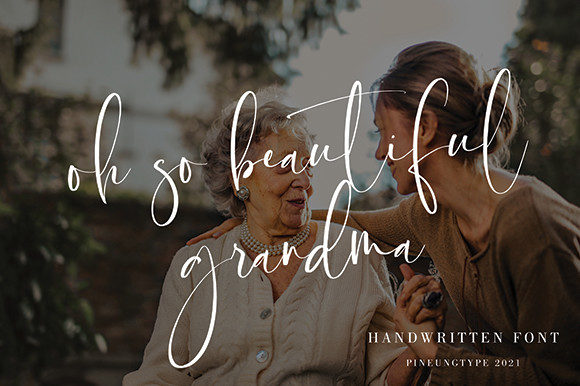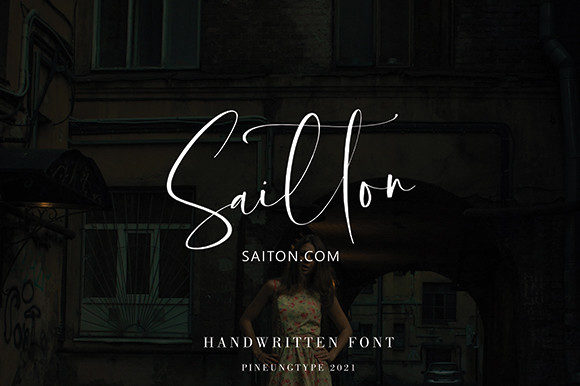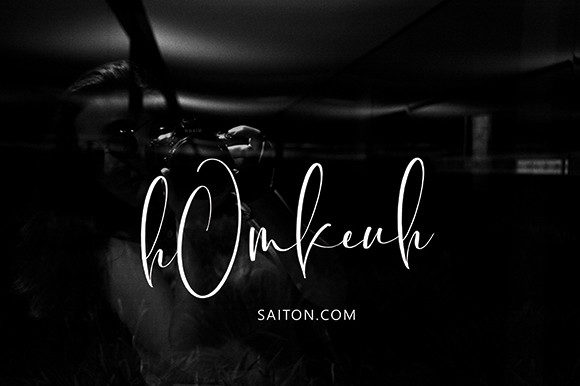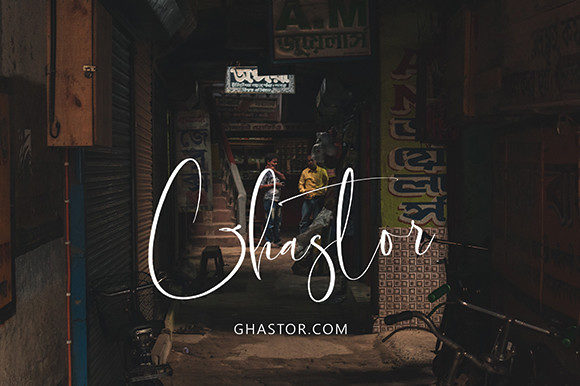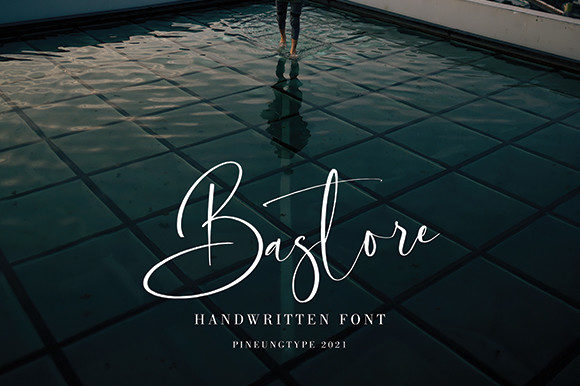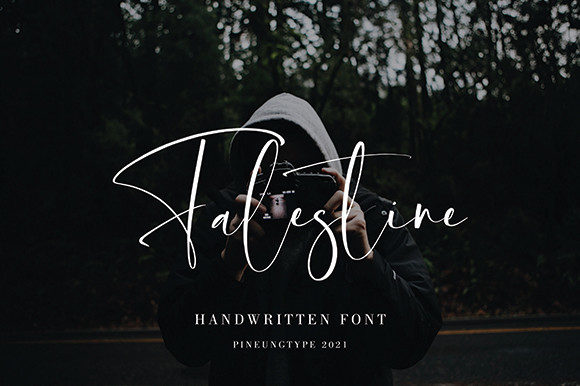
Introduction to Phistop Font
As a designer, you’ve probably experienced that moment when you’re working on a creative project and you can’t quite put your finger on what’s missing. The words, the images, the colors – everything is there, but something just doesn’t feel right. And then, like a breath of fresh air, you stumble upon the perfect font. For those who have been searching for the perfect script font, your wait is over. Introducing the Phistop Font, a high-quality, delicate script font that adds a touch of elegance to any design.
The Phistop Font is a design resource that will elevate your creative project to the next level. With its clean, thin, and smooth vibe, it’s perfect for adding a professional touch to your work. Whether you’re a graphic designer, a writer, or a creative entrepreneur, this font is a valuable addition to your toolkit. And the best part? It’s available for free download, complete with a transparent background that makes it easy to integrate into your design.
Key Features of Phistop Font
- High-quality, professional design resource ideal for creative projects.
- Comes with a transparent background, making it easy to customize and integrate into various designs.
- Phistop Font is designed to be highly legible, even at small font sizes, making it perfect for use in presentations, infographics, and other visual materials.
- Unique, modern design that can add a touch of sophistication and elegance to any creative project.
Honest Review: Phistop Font
I recently had the chance to work with the Phistop Font, and I must say it’s been a game-changer for my design projects. This high-quality font is a fantastic design resource that offers a wide range of creative possibilities. ✨
Here are some of the features that I particularly love about the Phistop Font:
- Wide range of font styles and weights
- Perfect for creative projects that require a unique touch
- High-quality design that’s sure to impress
However, I did encounter a few limitations with the Phistop Font: ⚠️
- Some of the font styles may not be compatible with older design software
- The font may not be suitable for large-scale commercial projects
Overall, I’m thoroughly impressed with the Phistop Font. It’s a fantastic addition to any design resource collection, and I would highly recommend it to anyone looking for a unique and high-quality font. ✨
Tips for Getting the Most Out of Phistop Font
For the best results, use Phistop Font on a high-quality design resource with a transparent background. This will allow the font to stand out and create a clean, modern look. You can also use Phistop Font in conjunction with other design elements to create a unique and creative project.
Phistop Font is ideal for a variety of design projects, including logos, brochures, and business cards. Its modern and sleek design makes it perfect for creative projects that require a high level of sophistication. You can also use Phistop Font for free download, making it a great resource for designers on a budget.